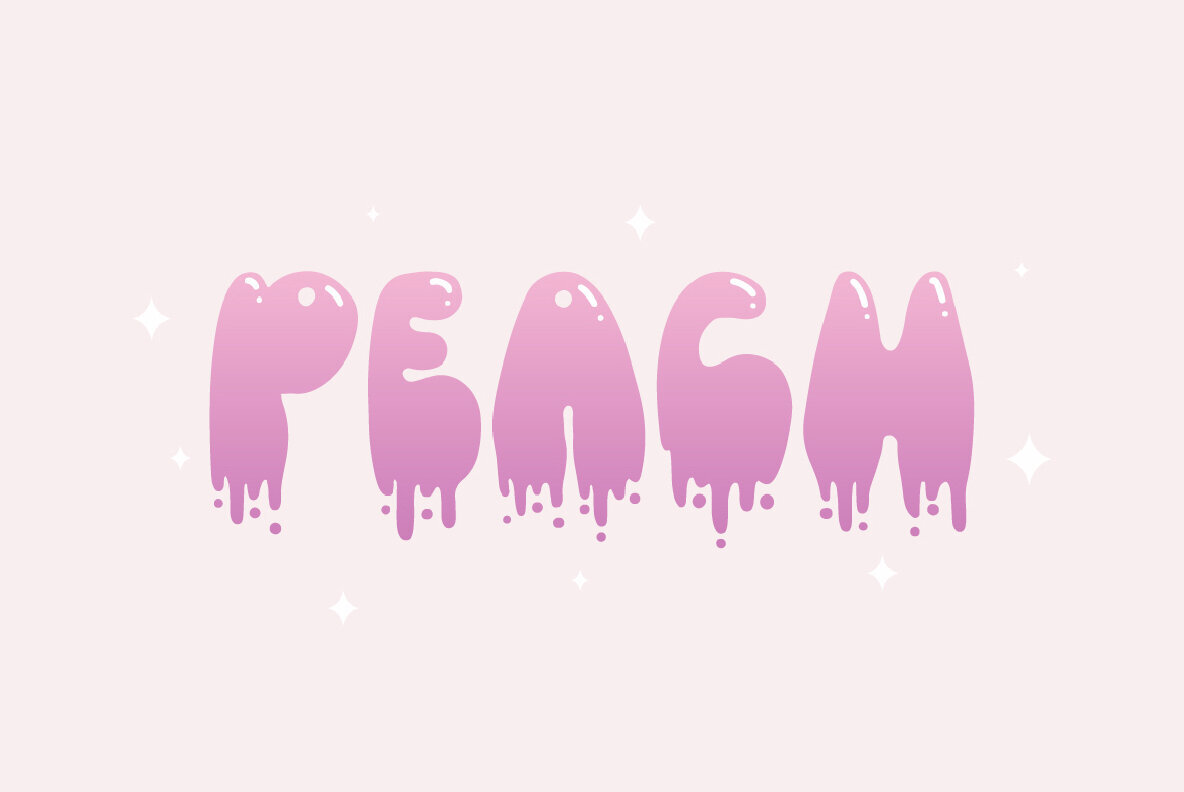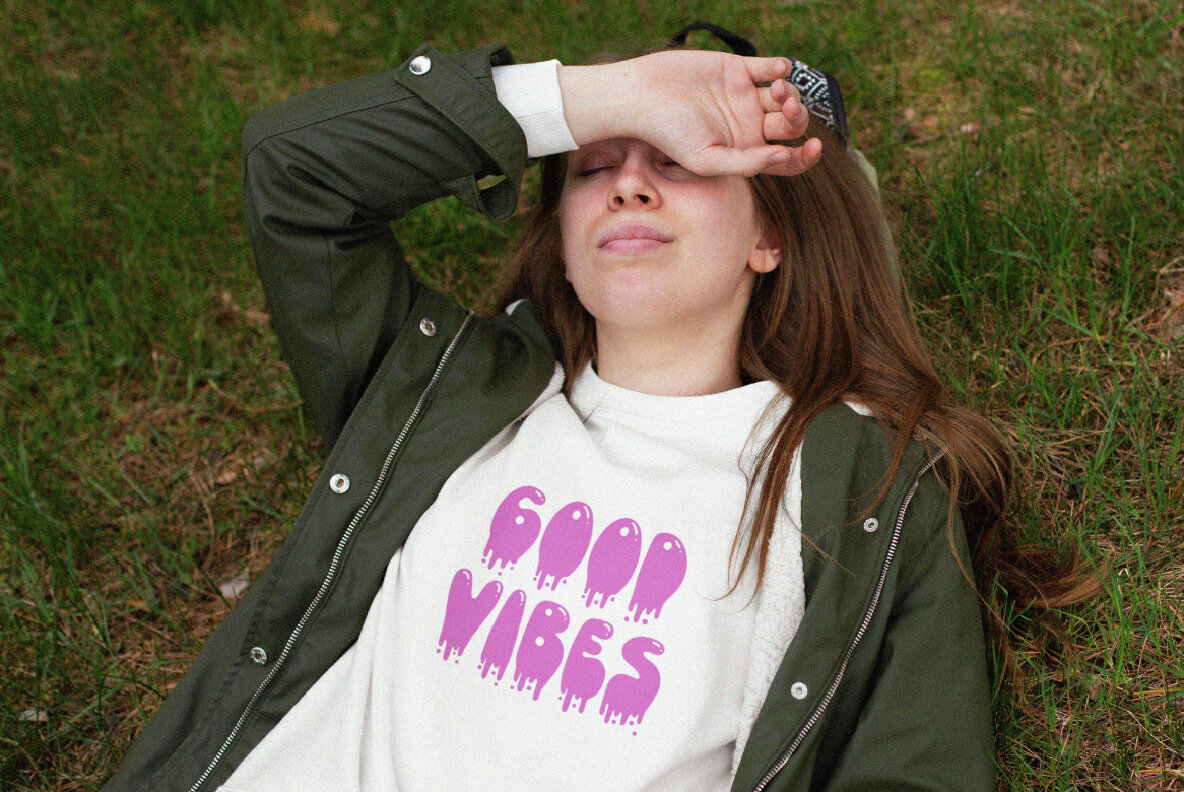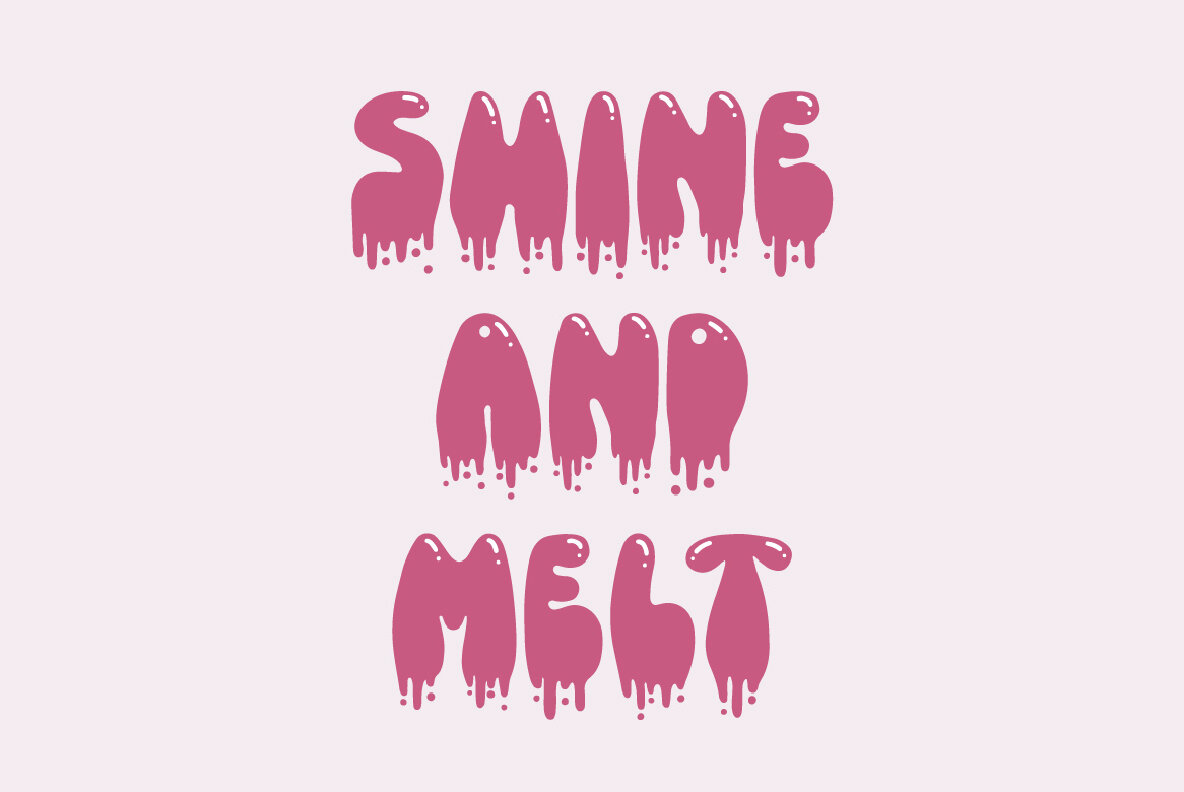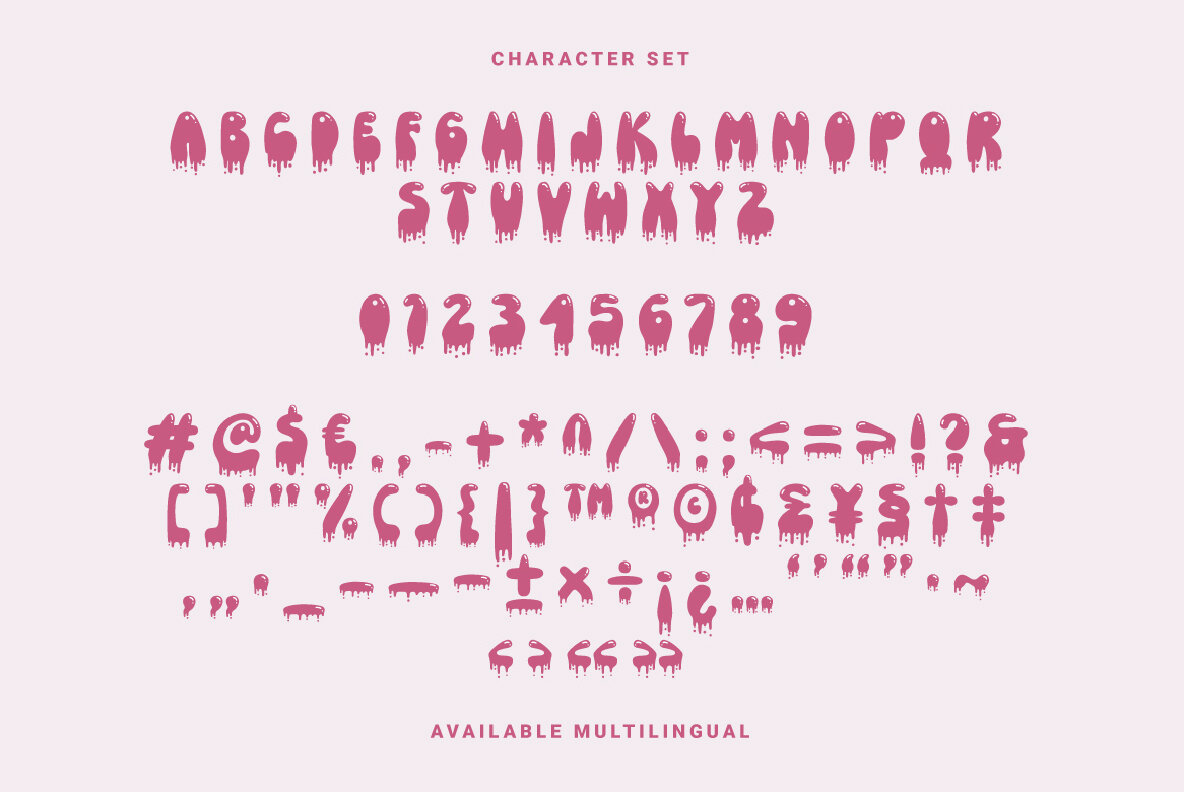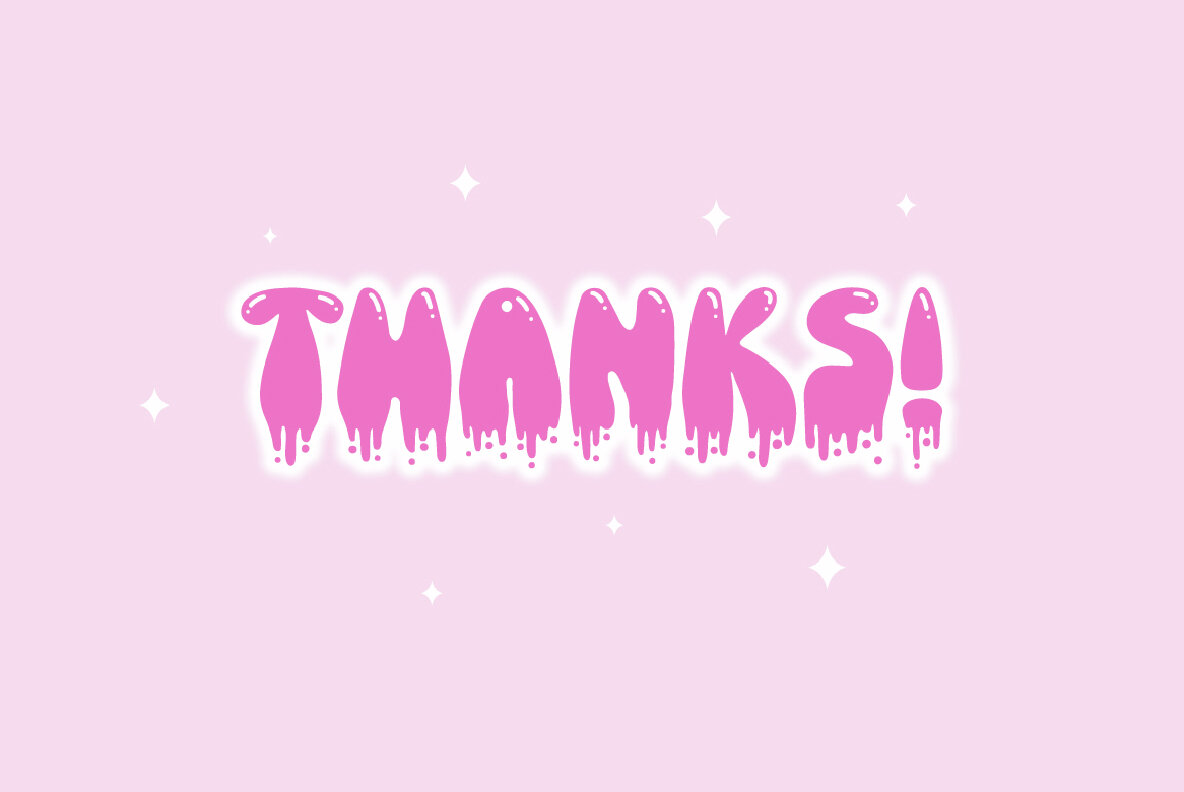
Peachy Bubbly Font
Peachy Bubbly is a hand-drawn font featuring chubby, playful, melting characters. Available in regular and shine styles, it simplifies design processes. Ideal for cover design, merchandise, and branding. Features: